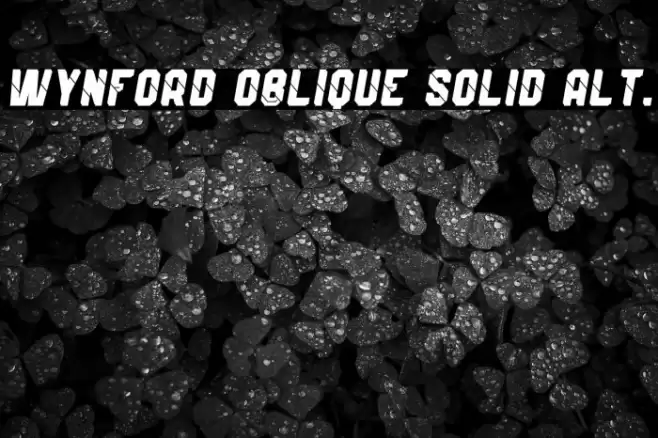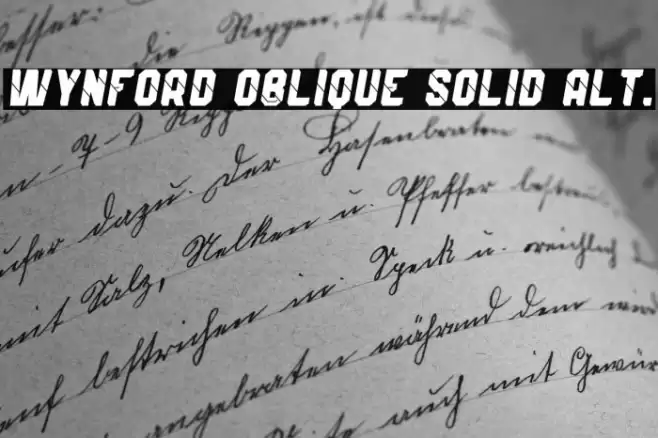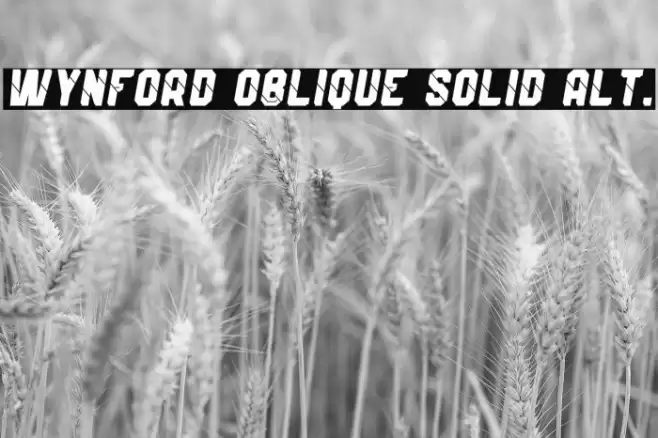
Wynford Oblique Solid Alt. Font
Wynford Oblique Solid Alt. Description
This font features a bold, geometric design with a distinct oblique slant, giving it a dynamic and modern appearance. The characters are constructed with solid, angular shapes, creating a sense of movement and energy. The uppercase and lowercase letters maintain a consistent style, with sharp edges and a uniform thickness throughout. The numbers and special characters follow the same design principles, ensuring a cohesive look across all glyphs. This font's unique style makes it stand out, making it suitable for attention-grabbing designs.
A bold, geometric oblique font with angular shapes and a modern feel from Uncategorized fonts.
- Proposed Projects: Ideal for sports branding, dynamic posters, modern logos, and edgy editorial designs.